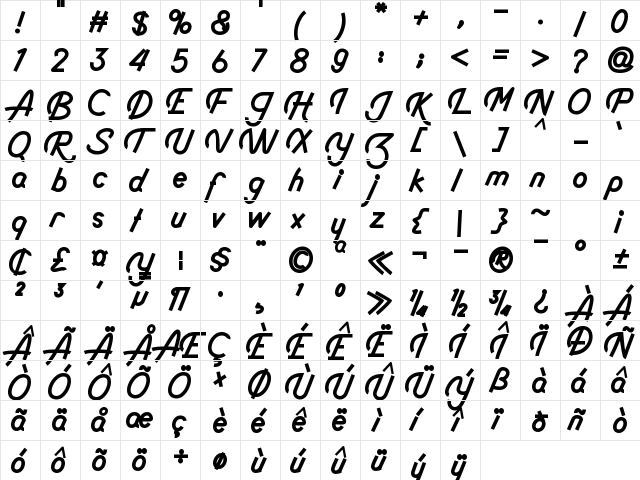
Kobryan Regular
Design Context for Kobryan Typeface
Kobryan is a composed and adaptable typeface that performs quietly and consistently across a wide range of design contexts.